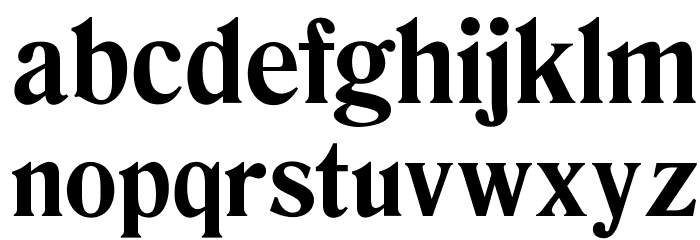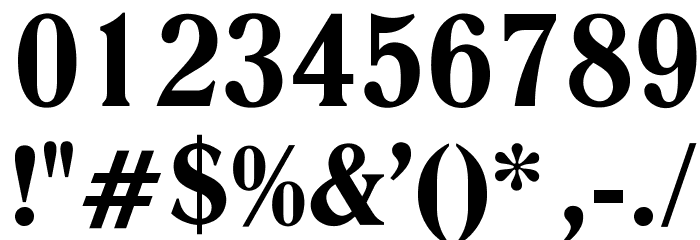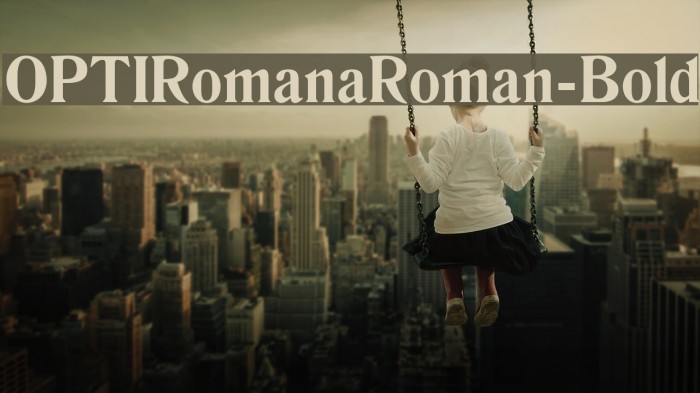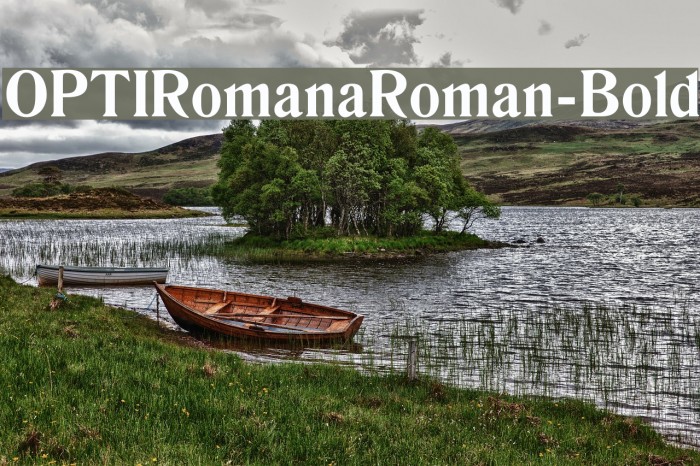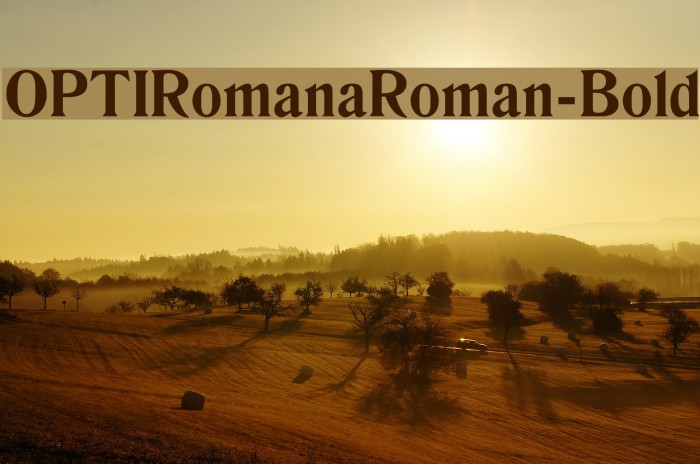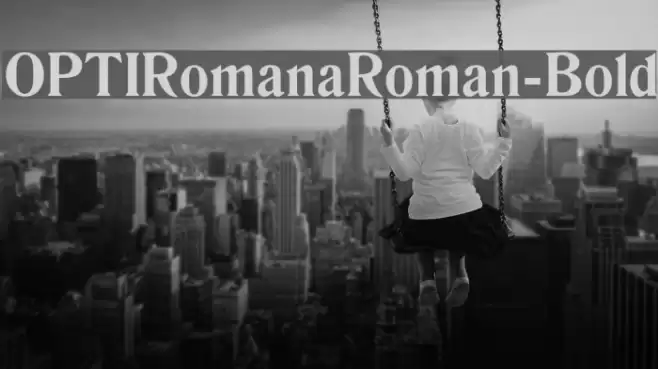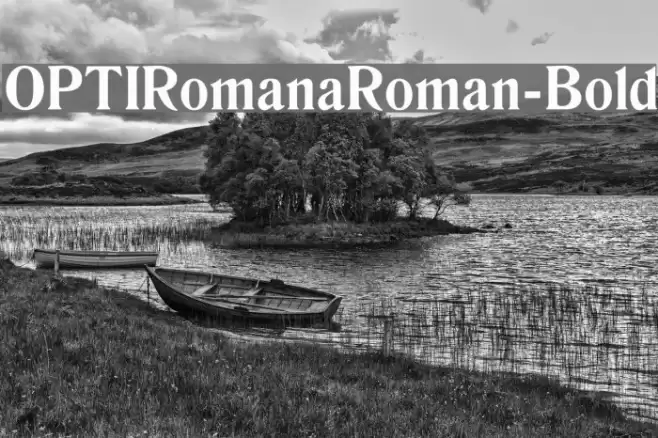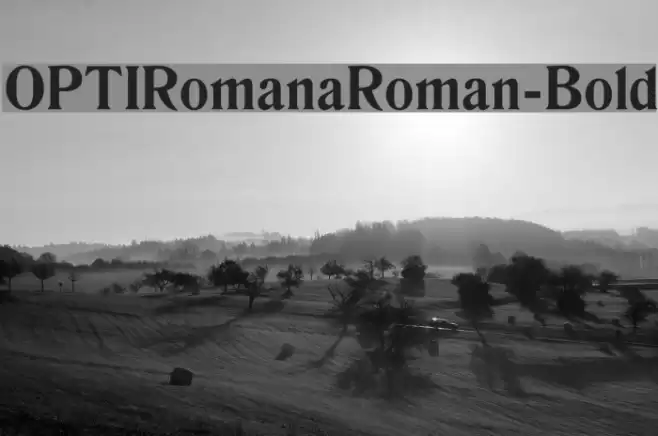
OPTIRomanaRoman-Bold Font
This font exhibits a classic serif style with bold, prominent strokes that convey a sense of authority and tradition. The uppercase letters are robust and well-defined, while the lowercase characters maintain a consistent weight, ensuring readability. The numerals are clear and distinct, making them suitable for various applications. The special characters are elegantly integrated, maintaining the overall aesthetic of the font. The design is versatile, suitable for both digital and print media, offering a timeless appeal that can enhance formal documents, editorial content, and branding materials.
A bold, classic serif font with strong strokes and a traditional aesthetic.
- Proposed Projects: Ideal for book covers, formal invitations, editorial layouts, and branding projects.
- Category: Serif
- Overall Style: Classic